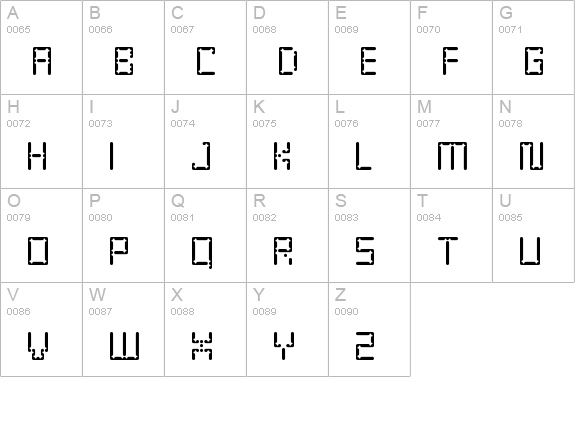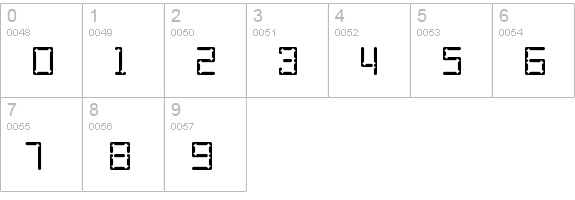
Enam Light Font Details
Enam Light is a refined, elegant variant in the Enam typeface family \xE2\x80\x94 well suited to elegant body text, refined sub-headings, and luxury branding.
Enam Light font is a beautifully designed typeface that exudes elegance and sophistication. Its sleek lines and modern aesthetic make it perfect for a wide range of design projects, from branding to editorial design. The light weight of this font adds a touch of delicacy and refinement to any text. What sets Enam Light font apart is that it is available for free download at FontsMarket.com. This means that you can easily access and use this stunning font in your projects without any cost. Whether you are a designer looking to elevate your work or a business owner seeking a distinctive look for your brand, Enam Light font is a versatile and stylish choice that won't break the bank. Download it today and add a touch of sophistication to your designs!